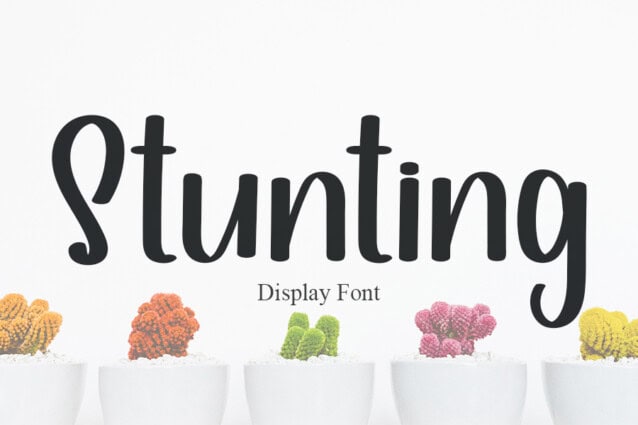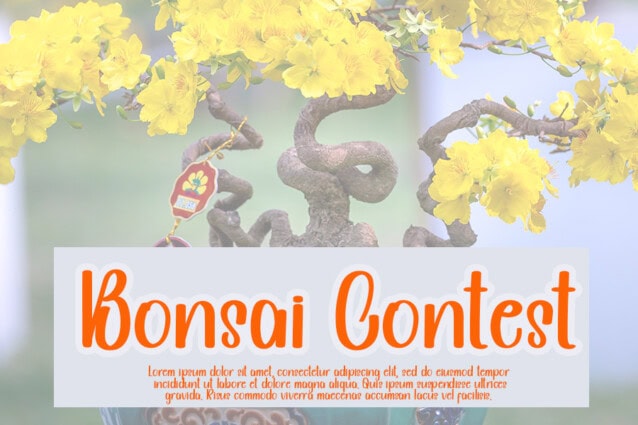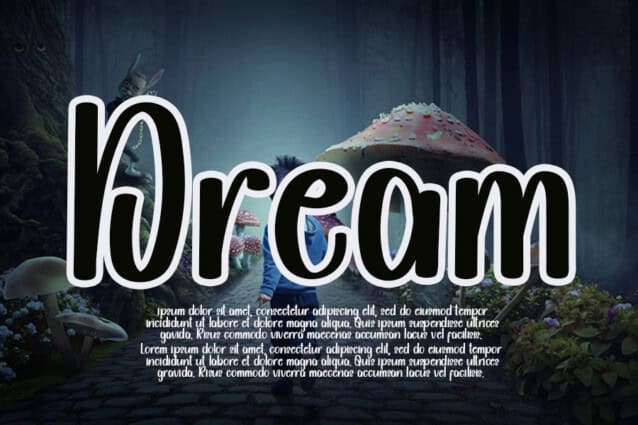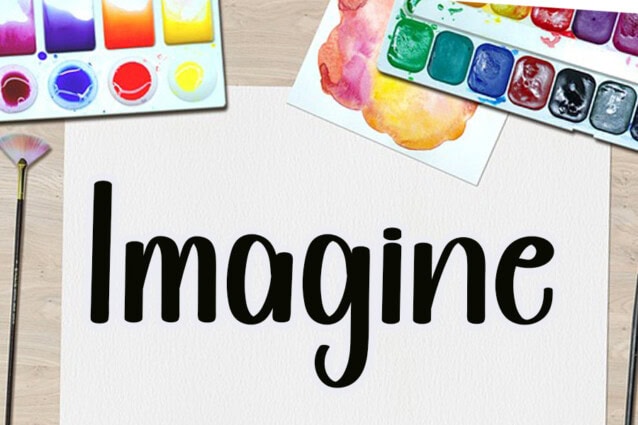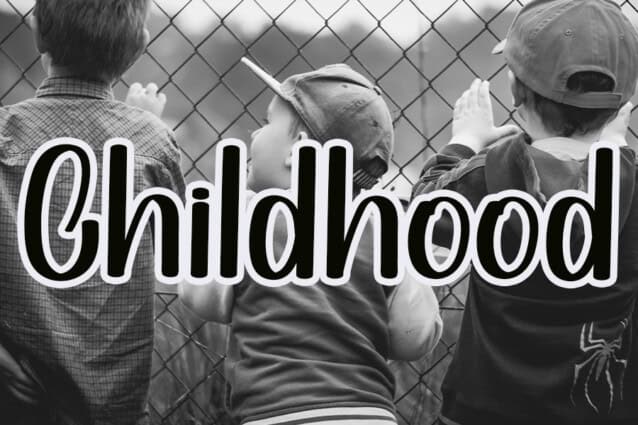
Stunting Display Font
Stunting Display Font is a lovely handwritten font. Not too thin and not too thick, balanced and varied, this font was designed to enhance the beauty of your projects.